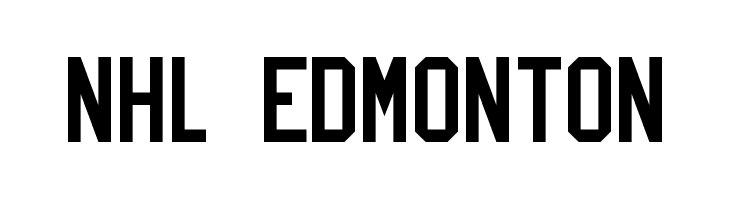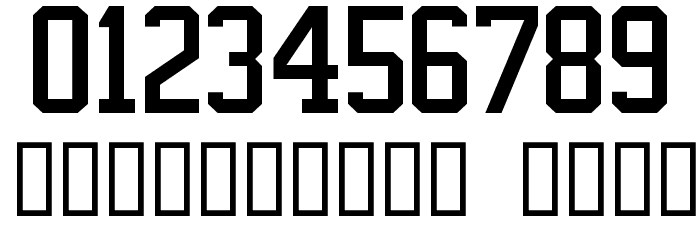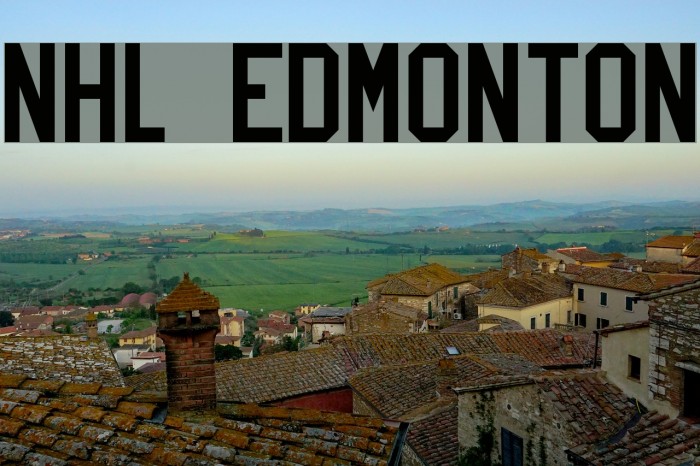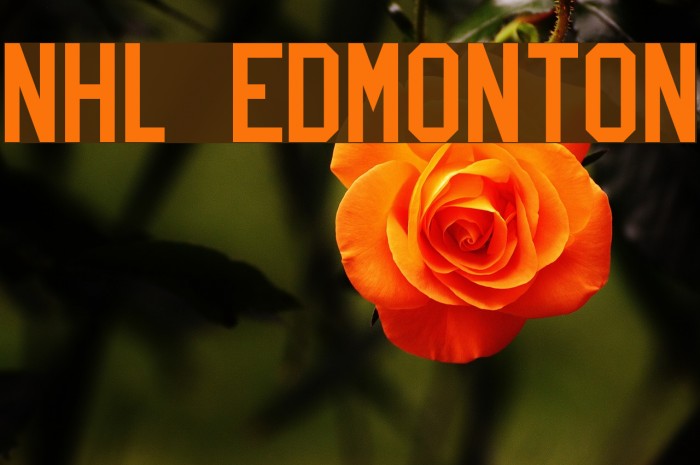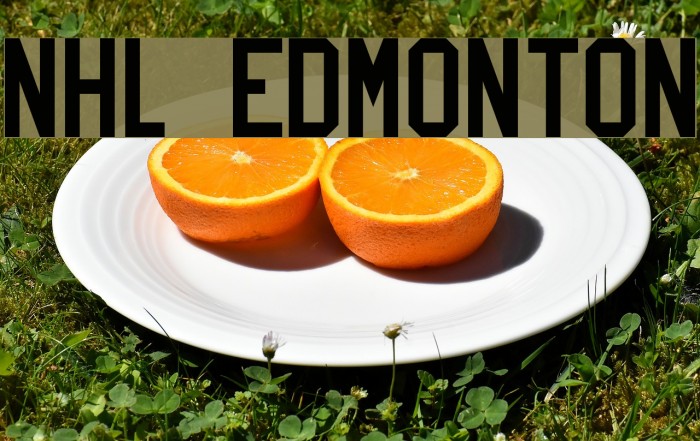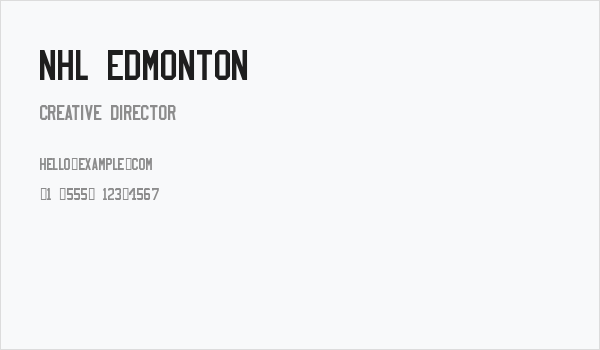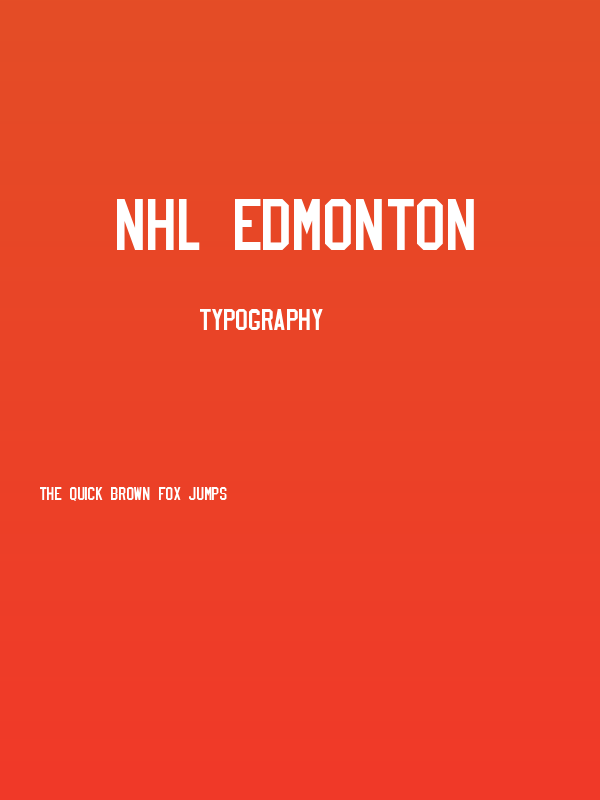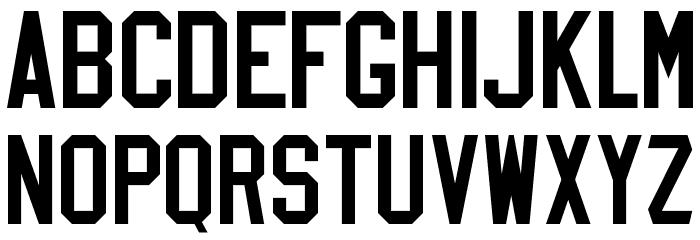
NHL Edmonton Font
NHL Edmonton Description
This font features a bold, geometric design with strong, angular lines and a modern aesthetic. The uppercase letters are uniform in height, creating a cohesive and structured appearance. The numerals are equally bold, maintaining the geometric style with sharp edges and consistent line thickness. The absence of lowercase letters and special characters suggests a focus on simplicity and impact. This font is ideal for projects requiring a strong visual presence, such as sports branding or team logos.
| Use Case | Logos, Headlines |
| Proposed Projects | Ideal for sports branding, team logos, and any project requiring a strong visual impact. |